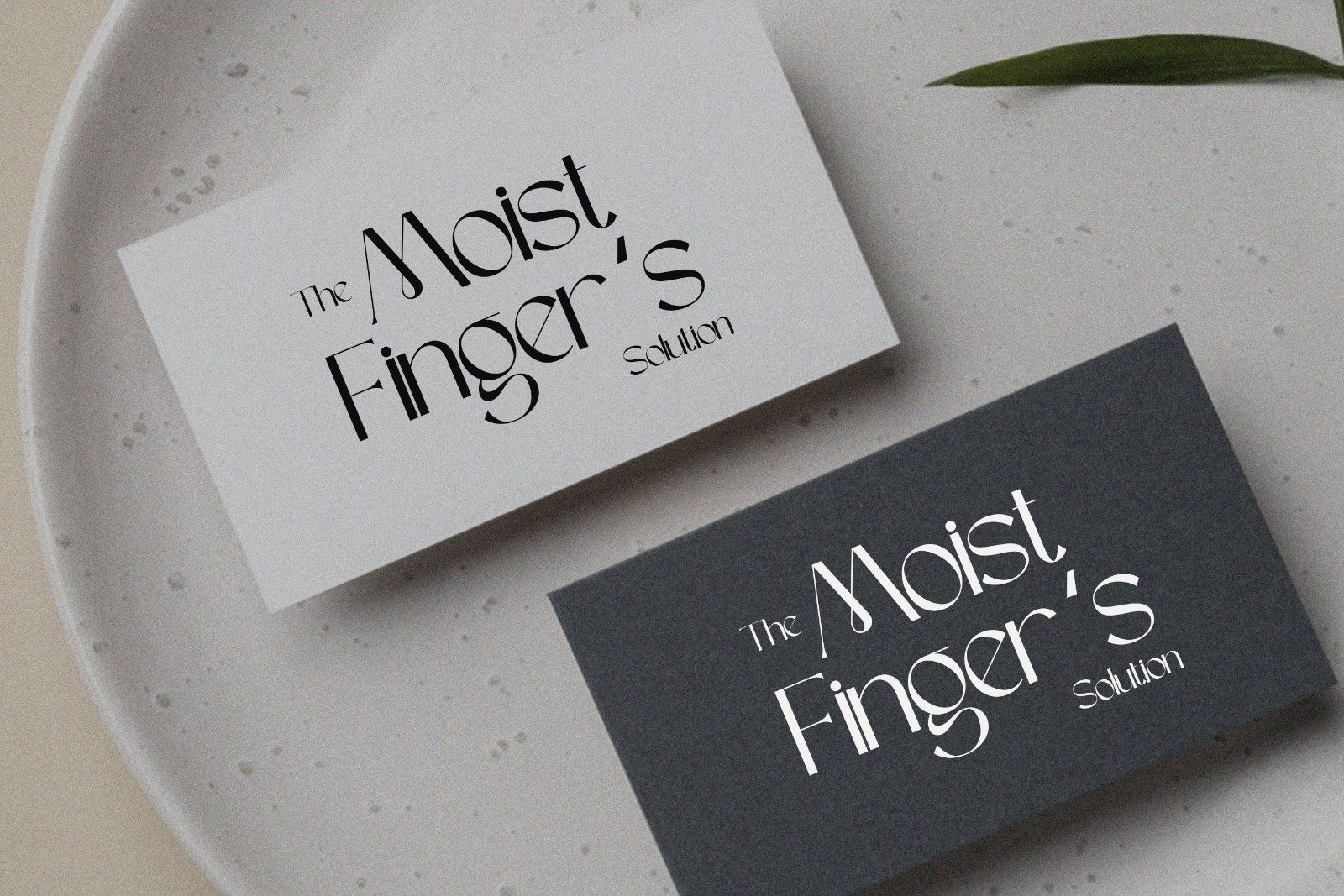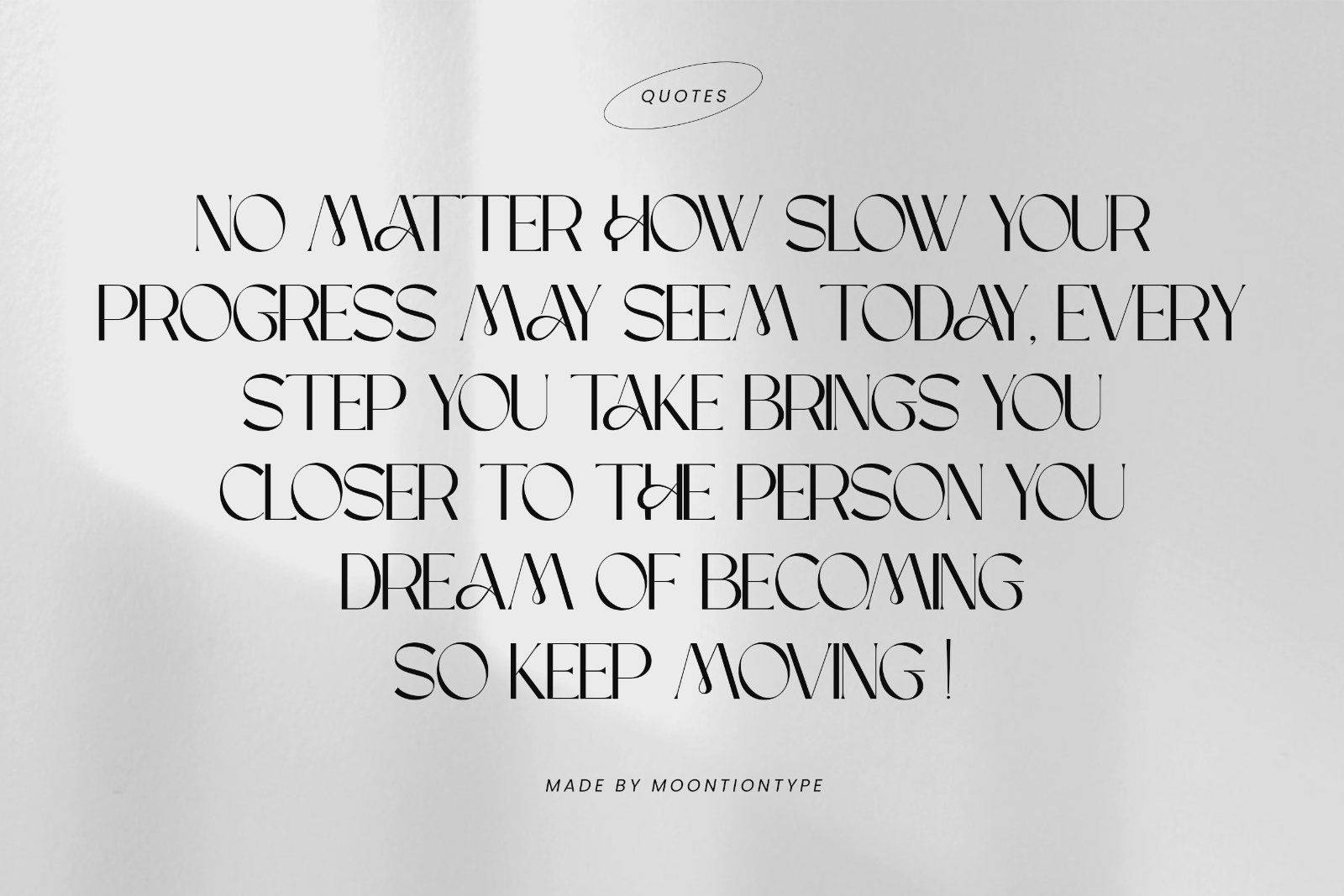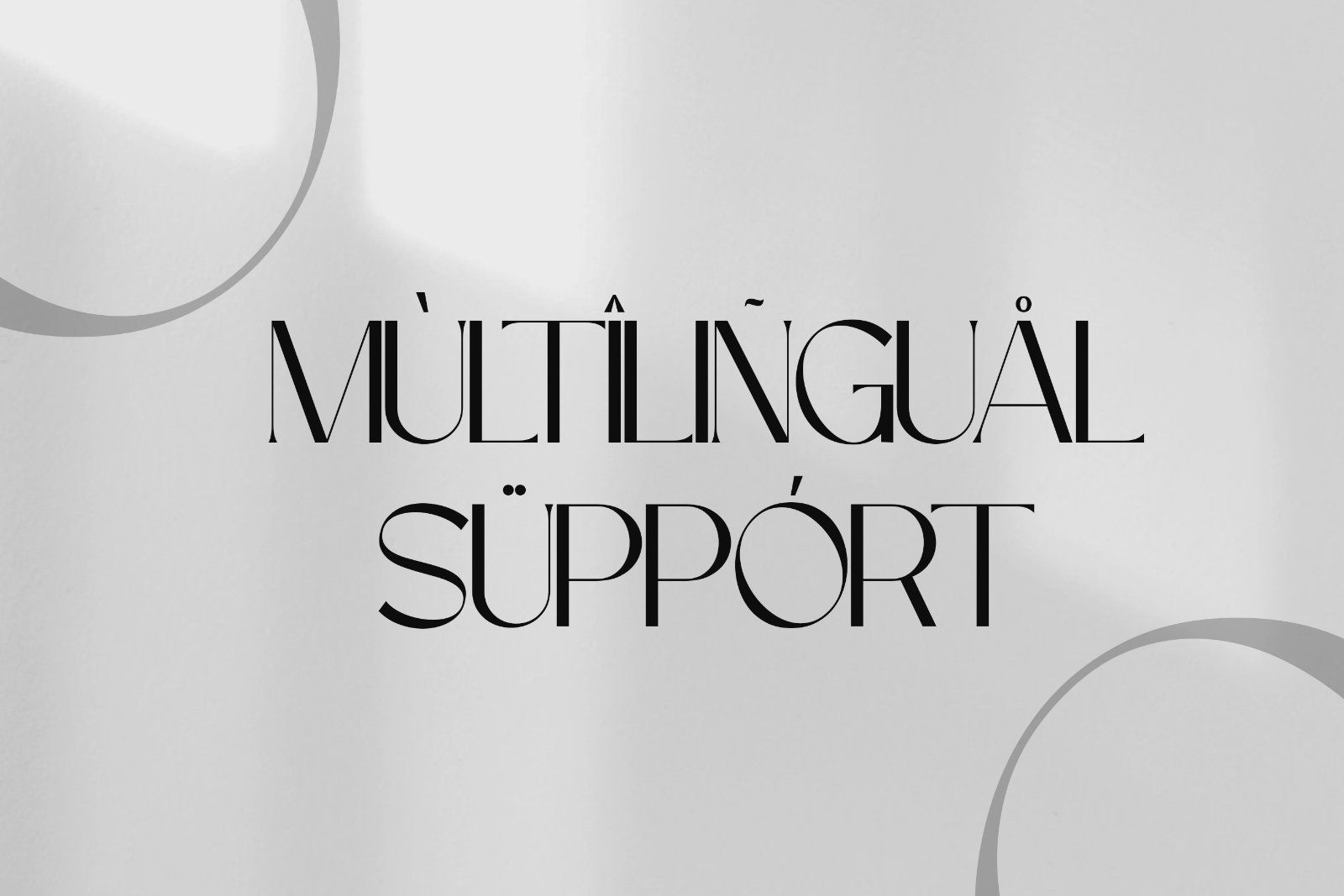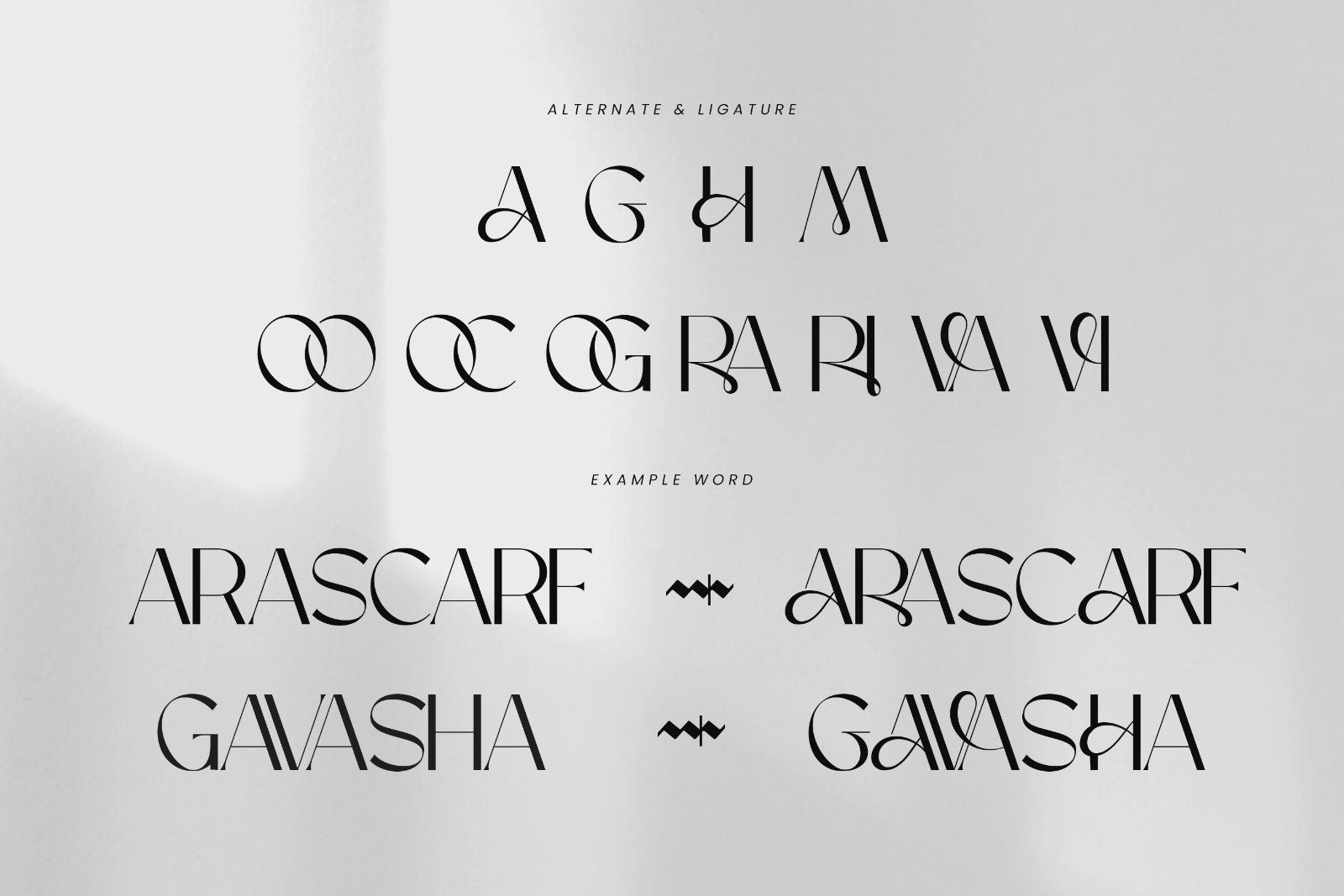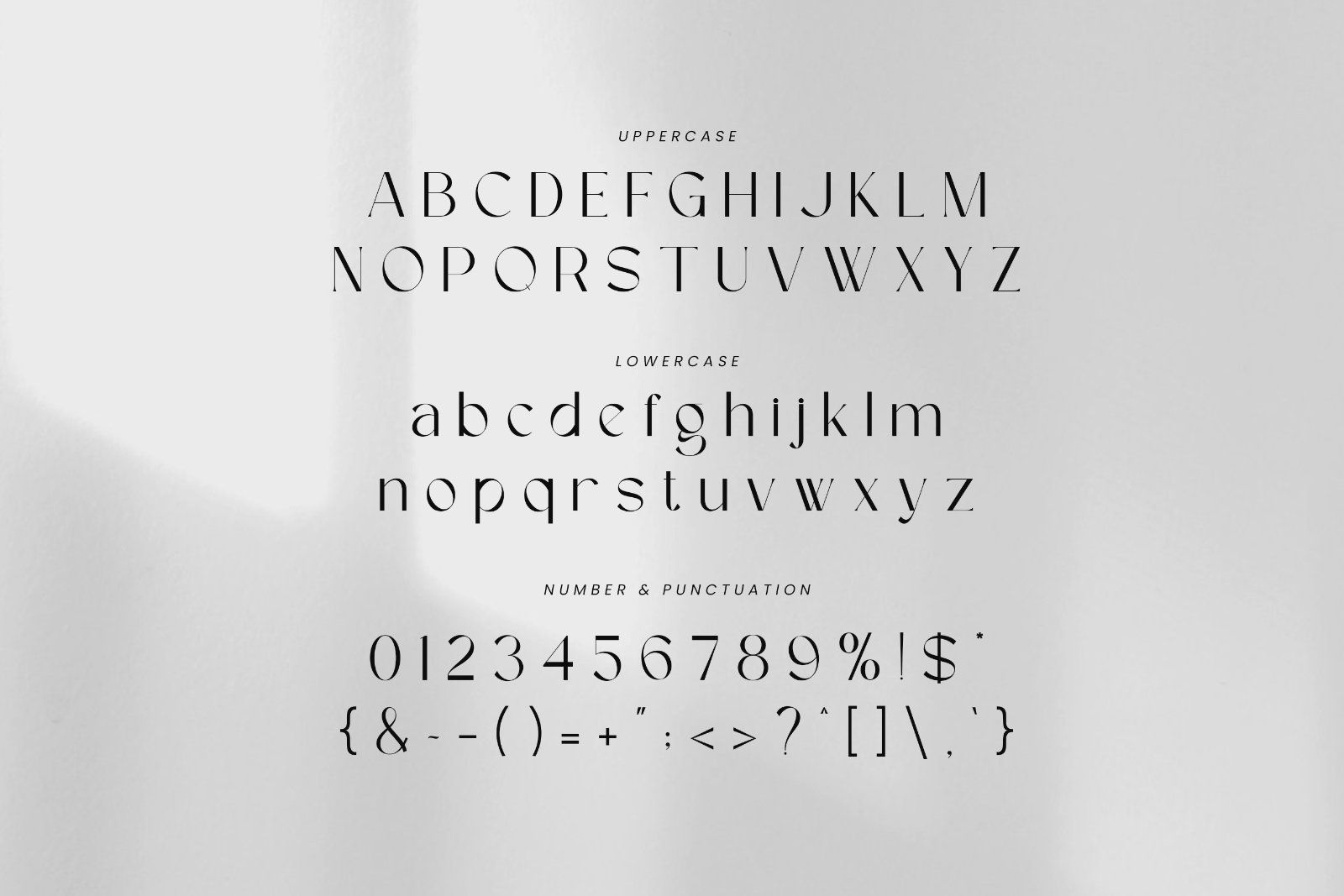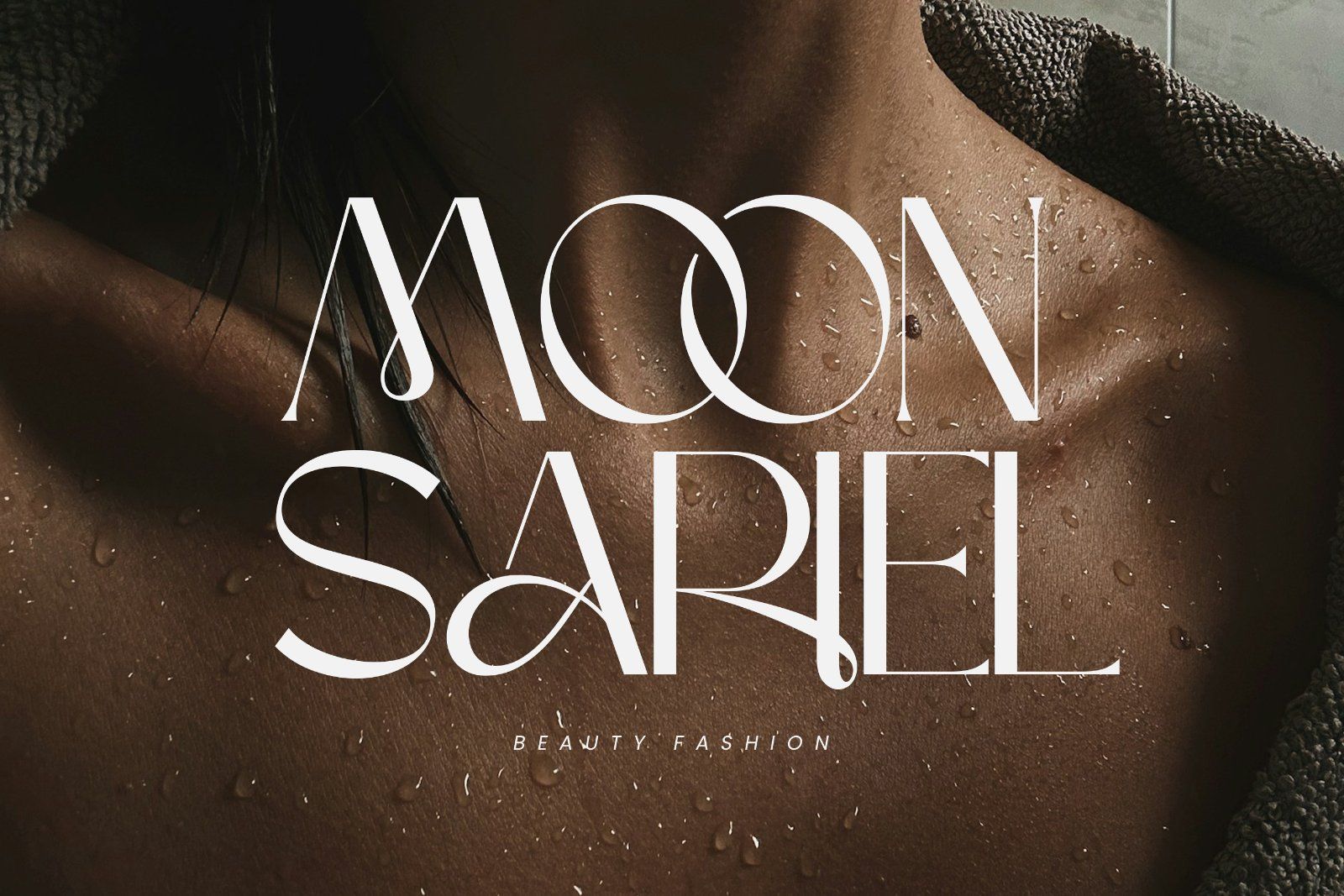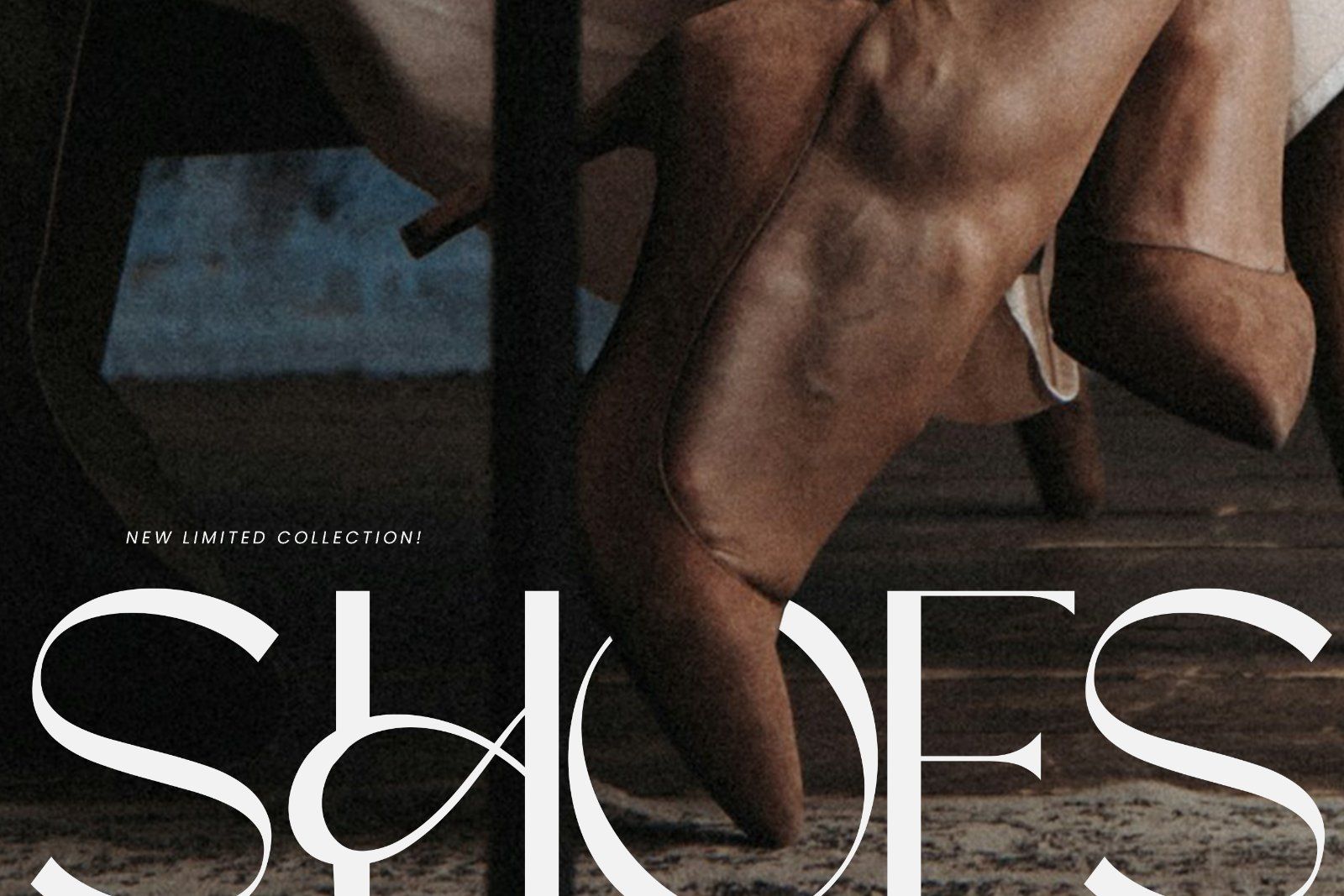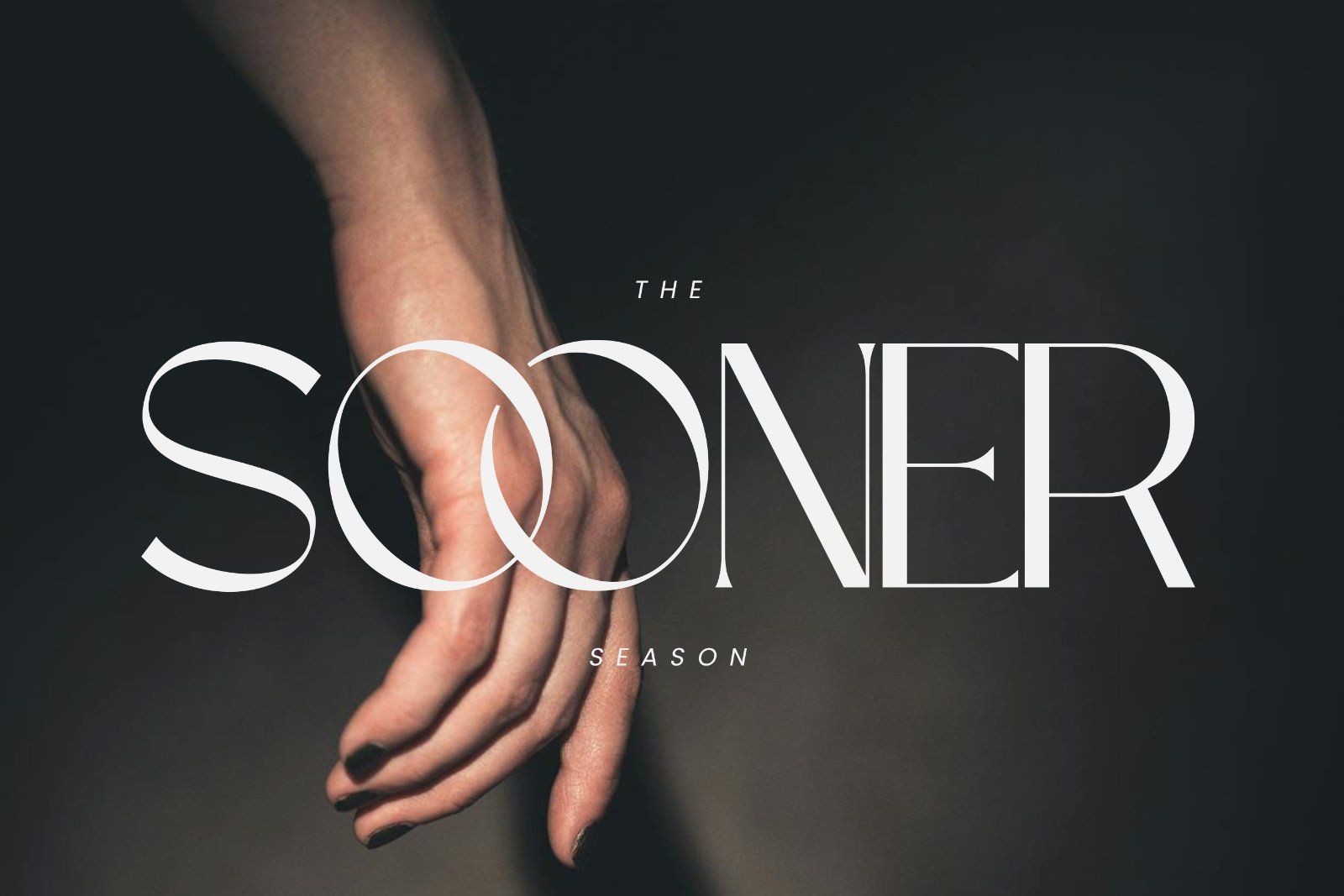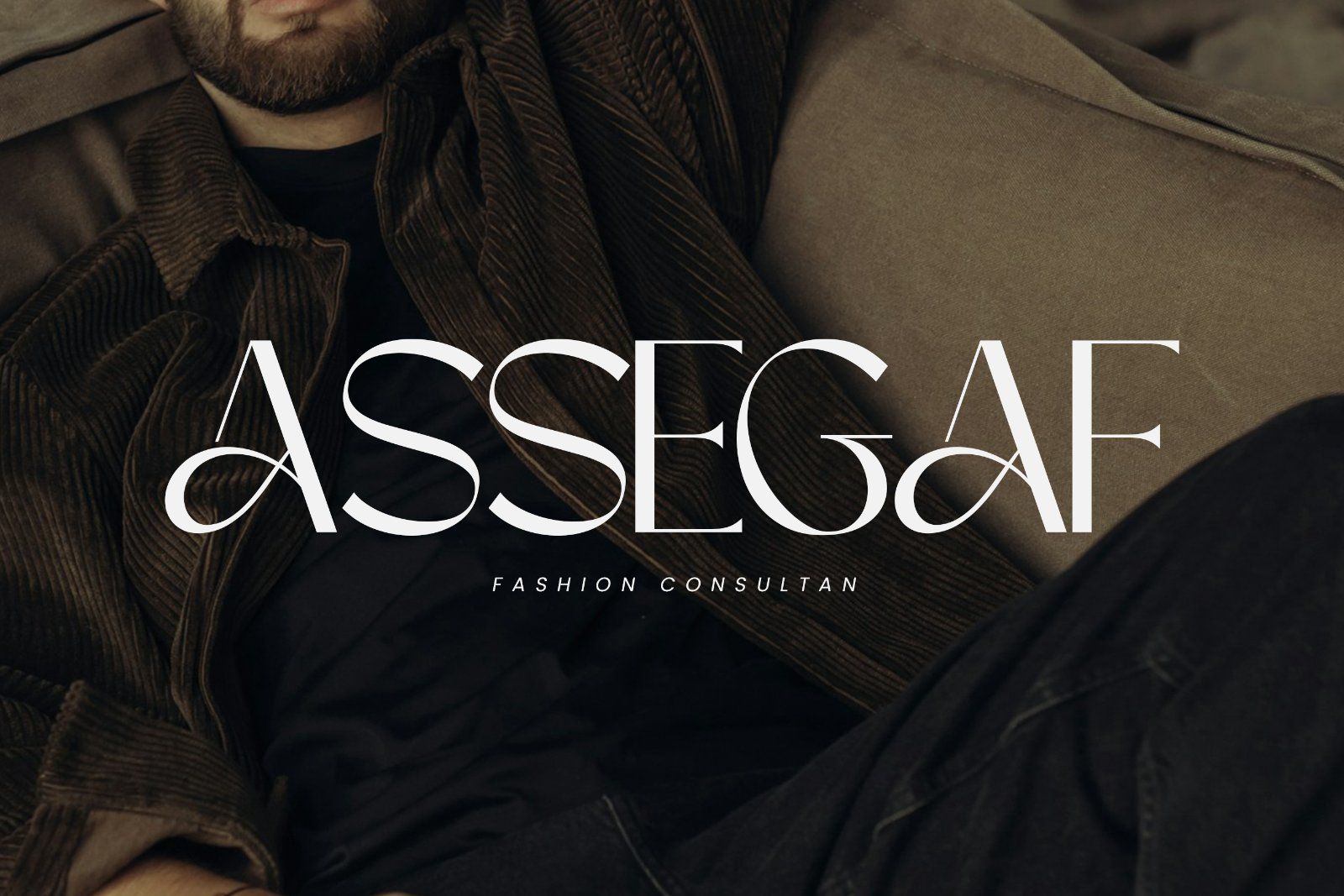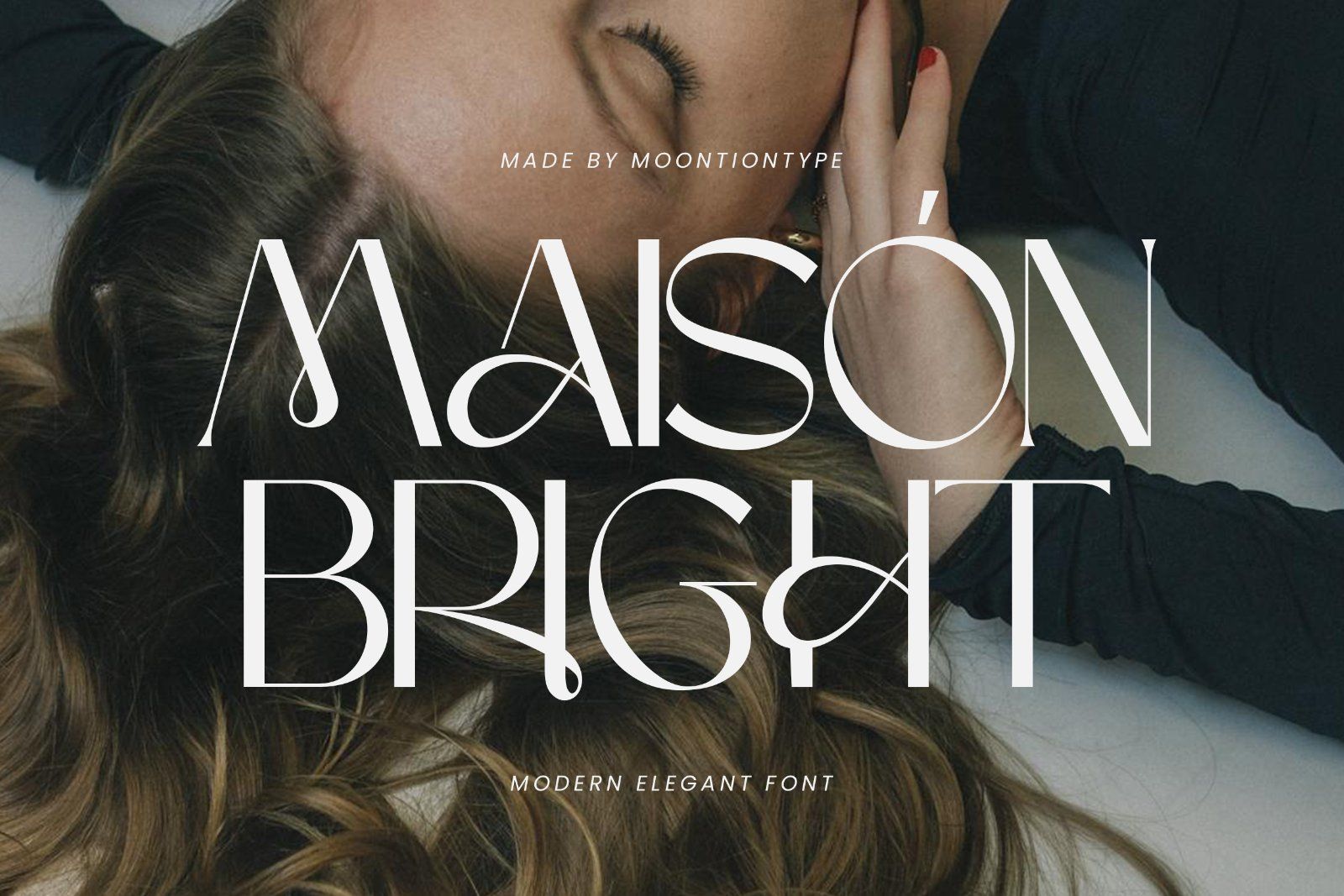
Maison Bright is a modern elegant sans serif font that combines high-fashion sophistication with artistic, flowing letterforms. Its refined curves, stylish ligatures, and luxurious strokes create a distinctive look that feels both contemporary and timeless. Perfect for branding, editorial design, logos, packaging, invitations, and any project that requires a touch of elegance and exclusivity. Maison Bright brings a classy, high-end aesthetic that stands out effortlessly.
• Uppercase
• Lowercase
• Numbers
• Punctuation
• Alternate
• Ligature